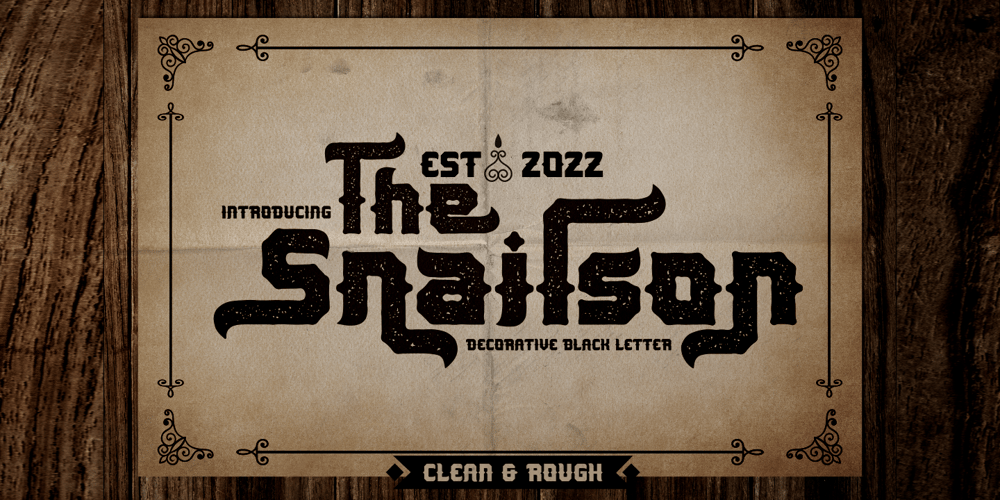
The Snailson
The Snailson font
The Snailson Font Family was designed by Putra Novembria Candra Kusuma and published by Putracetol. The Snailson contains 2 styles and family package options. The Snailson – Decorative Black Letter Font. The Snailson is a decorative black letter display typeface. The Snailson font inspired by black letter theme of the vintage posters. The Snailson have classic decorative, retro and trendy display. But in The Snailson font I combine several variations such as the ligature. It makes The Snailson font even more unique and different. The Snailson is also great for any kind of display purpose from album, cover,poster, label, tshirt, apparel, signage, quote, logo, greeting card,logotype and many more. The Snailson is also support multi language.The alternative characters were divided into several Open Type features such as Swash, Stylistic Sets, Stylistic Alternates, Contextual Alternates, and Ligature. The Open Type features can be accessed by using Open Type savvy programs such as Adobe Illustrator, Adobe InDesign, Adobe Photoshop Corel Draw X version, And Microsoft Word. This font is also support multi language.